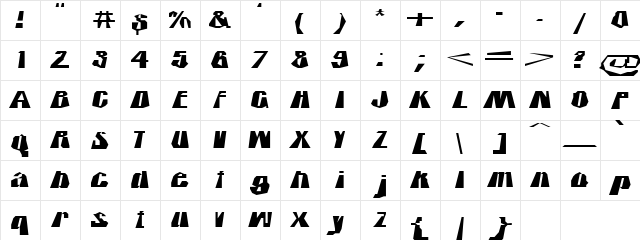
IcicleCountry Regular Font Preview
IcicleCountry Regular
IcicleCountry Regular Font Details
Design Context for IcicleCountry Typeface
IcicleCountry is a composed and adaptable typeface that performs quietly and consistently across a wide range of design contexts.
Pro Tip: Use IcicleCountry in both headline and body roles to test its range before committing to a single application.